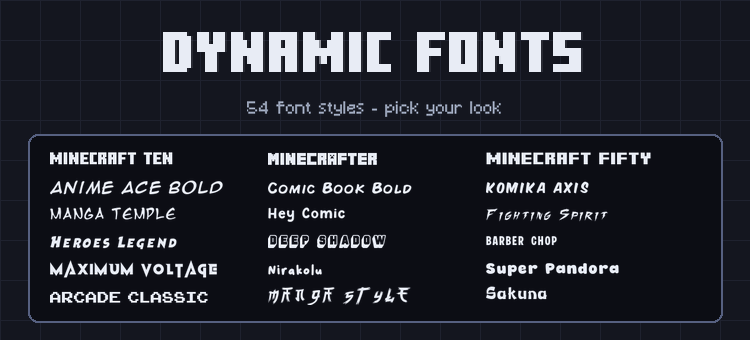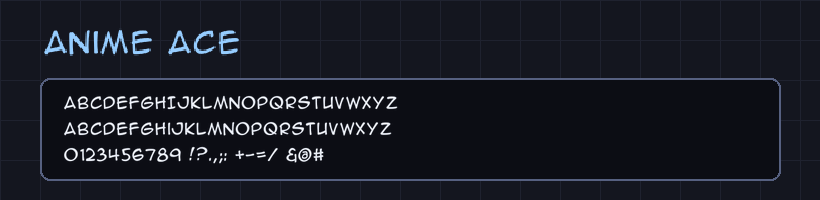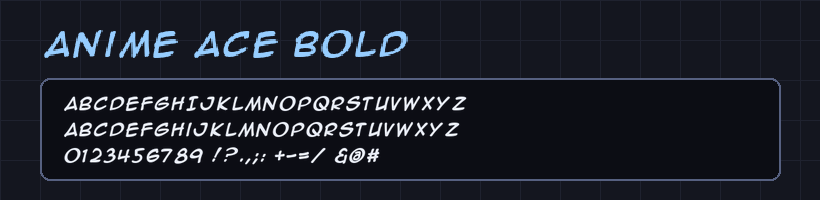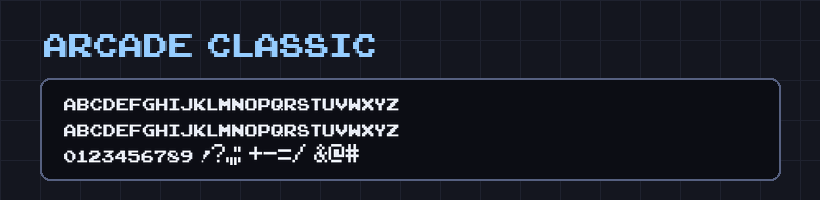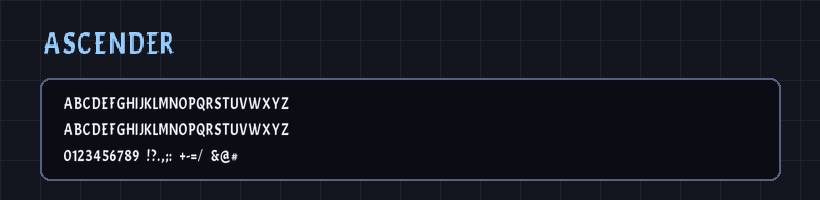
54 custom font styles for Minecraft Bedrock — all in a single pack with subpacks. Minecraft classics, anime styles, comic book fonts, pixel gamer fonts, Japanese brush styles, and more. Pick your font from the subpack list and every text in the game changes instantly.
- 54 font styles — the largest font collection in a single Bedrock pack
- Minecraft classics — Minecraft Ten, Minecraft PE, Minecrafter, Minecrafter Alt, Minecraft Evenings, Minecraft Fifty
- Anime and Manga styles — Anime Ace, Manga Temple, Manga Style, Fighting Spirit, Heroes Legend, Modern Tokyo, Hoshiko Satsuki, and more
- Comic and creative fonts — Comic Book, Komika Axis, Hey Comic, Hey August, Break Brush, Maximum Voltage, Ultra Fresh, and more
- Pixel and gamer fonts — Pixel Gamer, Arcade Classic, Game Over, Gameplay, Gang Of Three, and more
- Japanese styles — Chinese Brush, Onsen Japan, The Last Shuriken, Karate, Zenzai Itachi, Sakuna, and more
- Dyslexia-friendly fonts — Open Dyslexic, Open Dyslexic Bold, and Open Dyslexic Mono included for accessibility